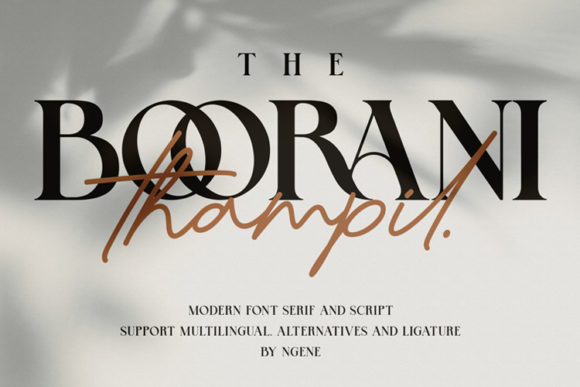
Introducing The Boorani Thampil Duo Font, the captivating display font that will ignite your creativity and elevate your designs beyond the ordinary. A captivating fusion of bold strokes and playful curves, this font is a masterpiece crafted to turn heads and leave lasting impressions.
With its distinct character, The Boorani Thampil Duo Font embodies authenticity and contemporary flair. Its bold strokes exude confidence, while the playful curves add a touch of intrigue that will make your designs stand out from the crowd. Whether you're a seasoned designer or just starting your creative journey, this font is the perfect tool to unleash your imagination and create designs that captivate and inspire.
Indulge in the endless possibilities that await with The Boorani Thampil Duo Font. Its versatility empowers you to express your creativity across a myriad of platforms. Let your imagination soar as you craft stunning logos that leave an unforgettable mark, eye-catching headlines that demand attention, and captivating social media posts that ignite engagement.
But The Boorani Thampil Duo Font is more than just a font; it's an invitation to embark on a creative adventure where your ideas take center stage. Its bold strokes will lend a touch of authority to your designs, while the playful curves will add a dash of whimsy that will make your creations truly unique.
Join the countless designers who have fallen in love with the charm of The Boorani Thampil Duo Font. Experience the joy of creating designs that resonate with your audience and leave a lasting legacy. Embrace the power of this captivating font and unlock a world of endless creative possibilities.